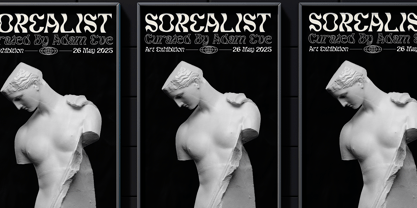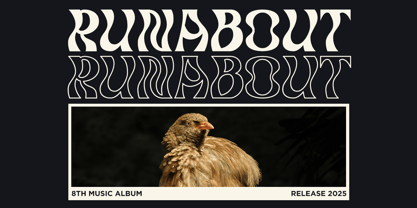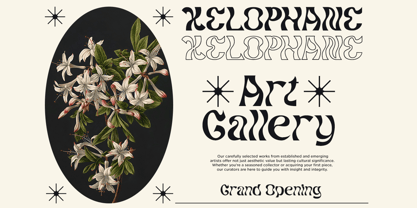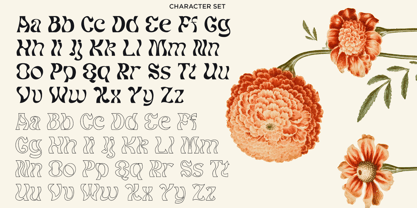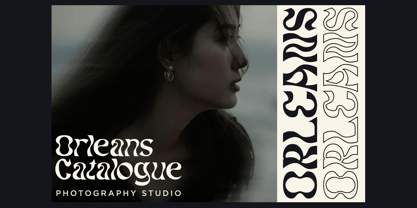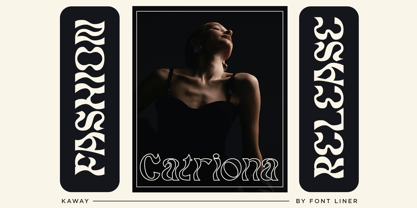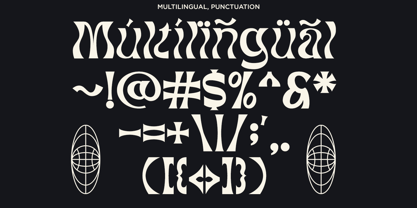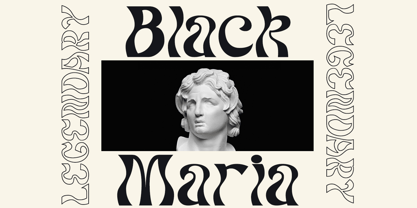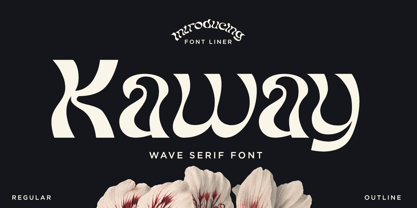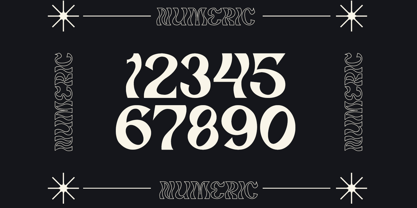
Kaway
von Font Liner
Die Schriftfamilie Kaway wurde von Ghina Luthfiarieska entworfen und von Font Liner veröffentlicht. Kaway enthält 2 Stile und Familienpaketoptionen. Mehr über diese Familie
Kaway is wave serif font blends sophistication with artistic flair, and wave of the sea making it a unique serif font for those who appreciate finer details. Ideal for high-end branding, editorial design, and special occasions like psychedelic design. Kaway is unique exudes timeless rIts subtle swaying effect creates a sense of wave movement of the sea, animating your text with a graceful dance. Kaway perfect for headlines, editorial layouts, and branding elements, this typeface adds a sophisticated charm to any visual composition.
Designer: Ghina Luthfiarieska
Foundry: Font Liner